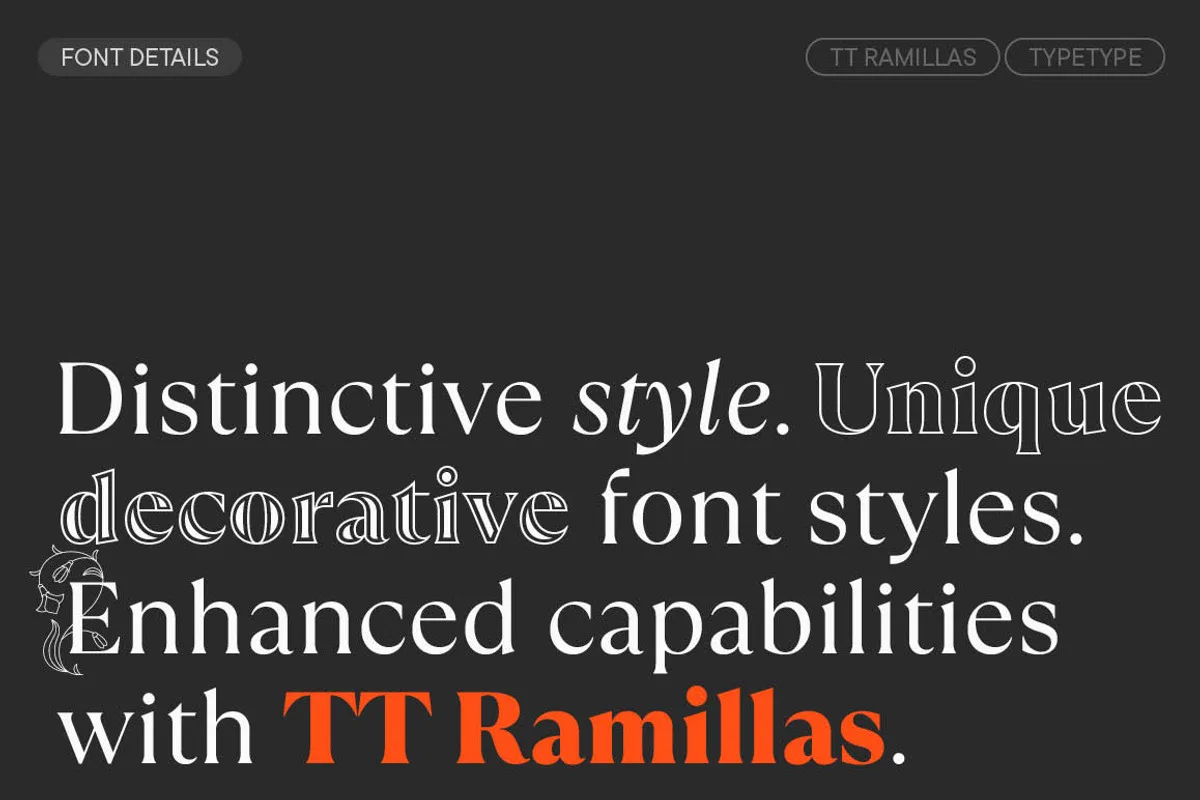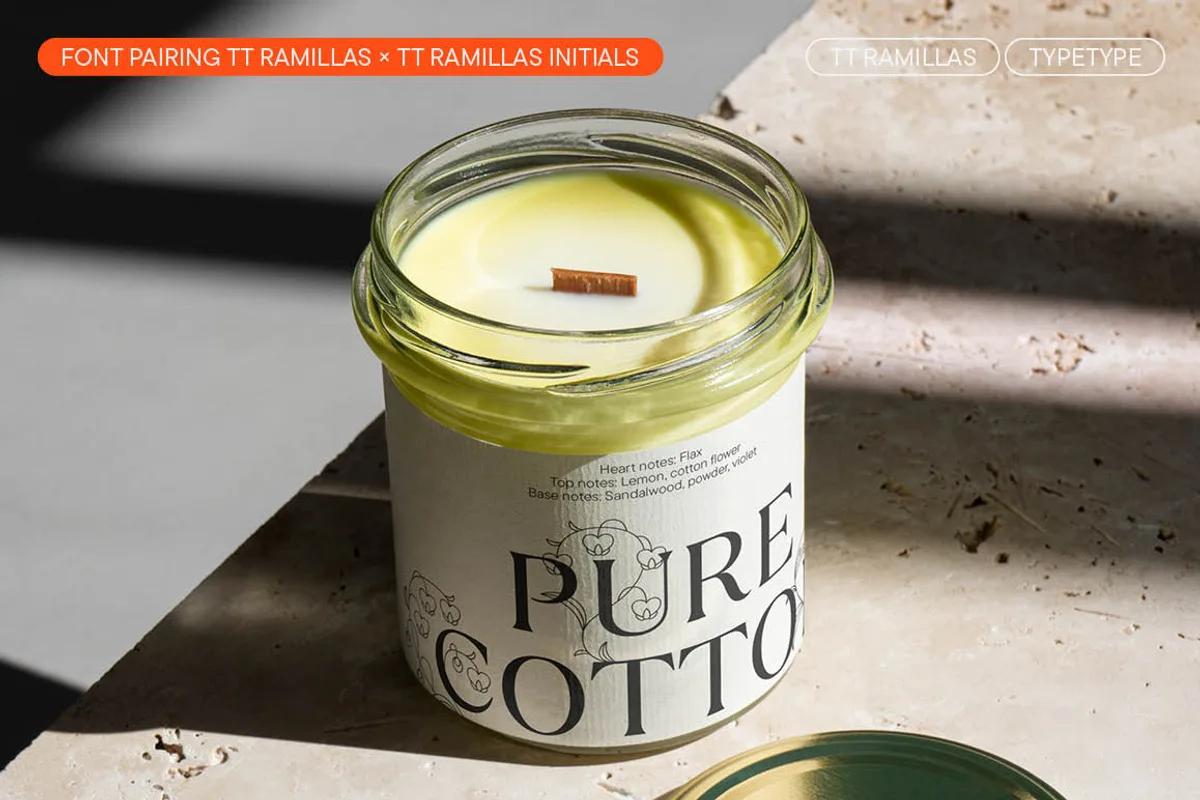
TT Ramillas is a stylish transitional serif perfectly adapted to modern reality and requirements. The idea behind this project was to experiment: we aimed to craft a modern serif with precisely balanced details by rethinking traditional forms and meticulously designing each glyph. And we achieved it!
Remarkable visual features of TT Ramillas include high contrast, small and flared serifs, a variable slant of ovals, an open aperture, contrasting and thin stresses, and the absence of teardrops. The font is also marked by a specific flame-like element of the letter “б,” an eye-catching tongue of the letter “Ээ,” flexible legs of the letters “Кк,” “Жж,” “Яя,” and a distinctive terminal shape of the letter “а.”
The typeface includes decorative subfamilies, Outline and Decor, which have separate italic versions, just like the basic subfamily. They work perfectly for headlines and eye-catching, accentuated short texts. Catering to the highest expectations, we prepared a variable version of the basic font styles. Using the type controlling tools, you can adjust and select specific font style weights without being limited by the existing weight parameters. Also, for TT Ramillas Initials, we created a set of initials decorated with flower patterns. They can become a graceful addition to the design of the first book passages.
TT Ramillas, version 2.000, features a significantly larger character set. We completed the extended Cyrillic and Latin alphabet glyphs, amplified the currency set (including the addition of the currencies for numerators and denominators), and introduced fractions. The updated version also features new stylistic sets and significantly enhanced language support.
Elegant TT Ramillas is an excellent choice for fashion and art magazines. It can also be used in the branding of premium goods and services. TT Ramillas is quite versatile: it performs great in headings, while small text blocks typed in this font will also be readable. Manual TrueType hinting integrated into this font allows it to excel in web design and applications.
The updated TT Ramillas includes:
- 28 font styles: 7 roman, 7 true italics of the basic TT Ramillas, 4 decorative styles (2 roman and 2 italic), 7 flower-patterned styles, and 3 variable fonts;
- 1233 characters in the roman font styles and 1237 characters in the italic ones;
- 30 OpenType features, such as small caps, ligatures, old-style figures, arrows, hands, and card suits.
- 230+ supported languages.